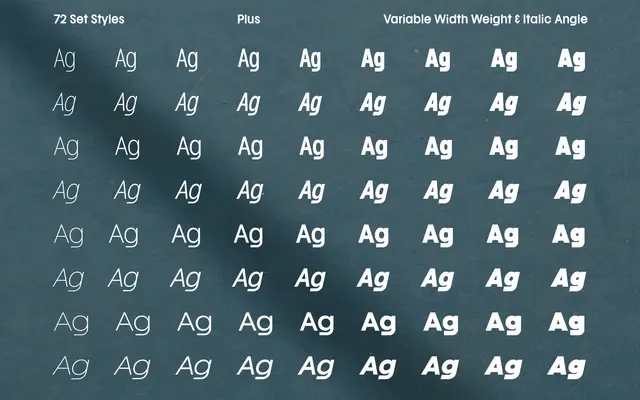
Franie Variable
A variable sans spanning four widths from ExtraCondensed to Regular and nine weights from Hair to Black, each with matching italics.
Covering 72 static styles plus a variable font, the family moves across ExtraCondensed, SemiCondensed and Regular widths with a weight range that begins at Hair and reaches Black. Every combination carries a corresponding italic, giving designers broad latitude across tight-measure poster work and standard text settings. OpenType features include small capitals, tabular and proportional figures, fractions, ordinals and a stylistic set.
The page presents a broad variable sans-serif with no overt humanist or geometric markers evident from the content; the extensive weight and width range is consistent with a grotesque or neo-grotesque classification.